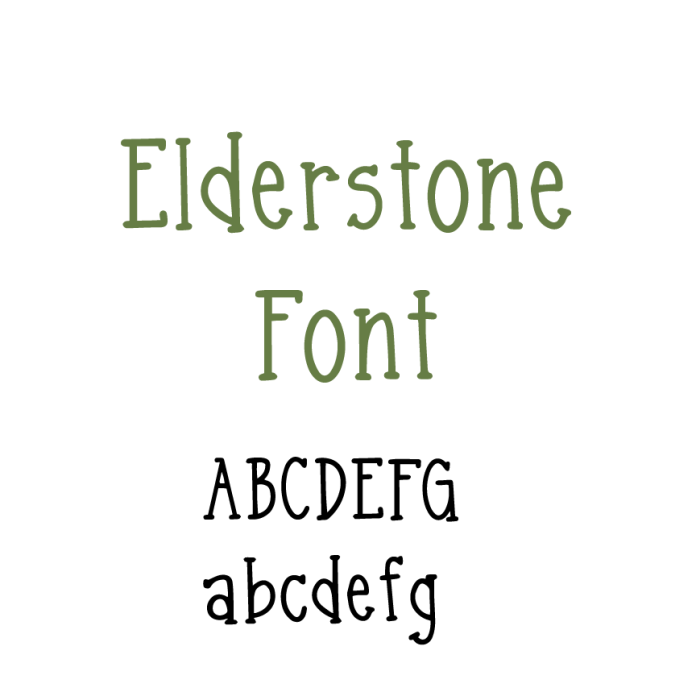
Discover Elderstone, a striking tall serif font that blends elegance with a touch of vintage charm. Perfect for creating bold headlines, sophisticated logos, wedding invitations, and stylish branding, Elderstone’s refined letterforms exude timeless appeal. Its graceful height and delicate serifs make every word stand out with confidence and class. Whether you're crafting eye-catching quotes, upscale packaging, or modern designs, Elderstone brings a balance of tradition and contemporary flair. Compatible with Silhouette Studio, this versatile font is a must-have for designers seeking a distinctive, high-end look. Elevate your creations with Elderstone and make every project unforgettable!